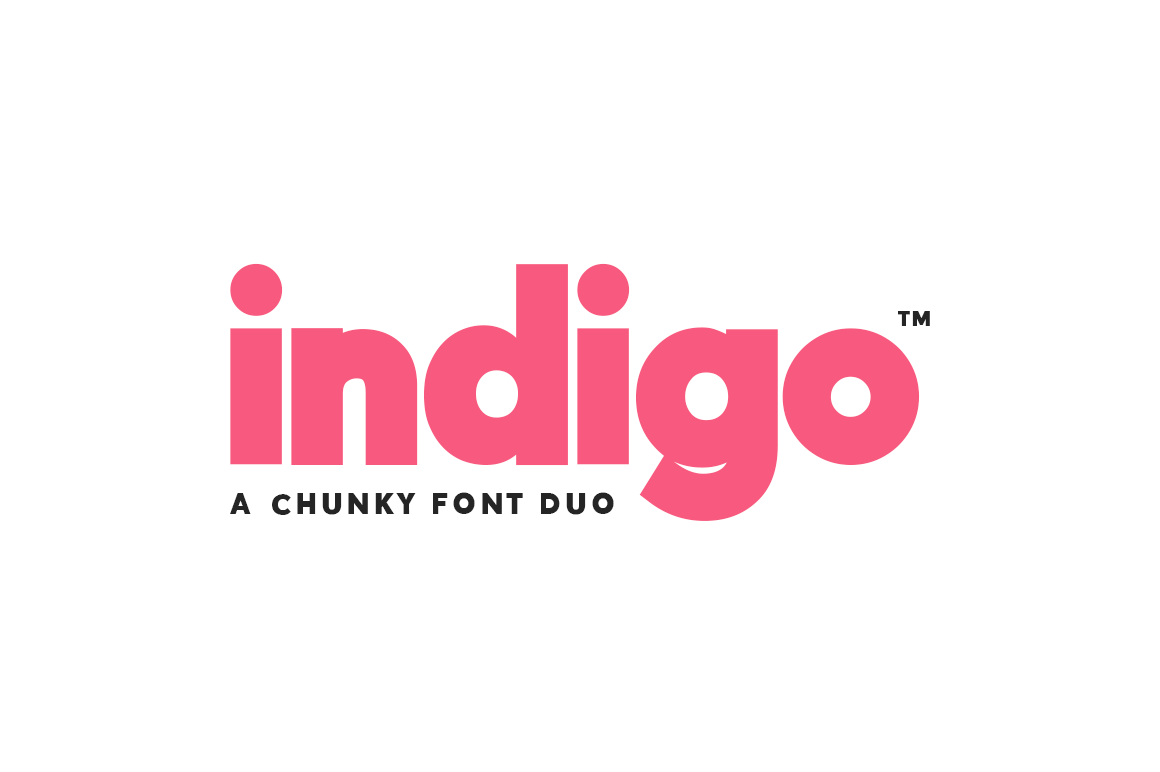
Indigo Sans Duo Font
“Our brand new font duo ‘Indigo Sans’ won’t give you the blues… It’s a fab combo of the sans serif ‘Indigo Regular’ and the outline version ‘Indigo Outline’. Combine the two for sophisticated yet edgy designs or be bold enough to use them alone.